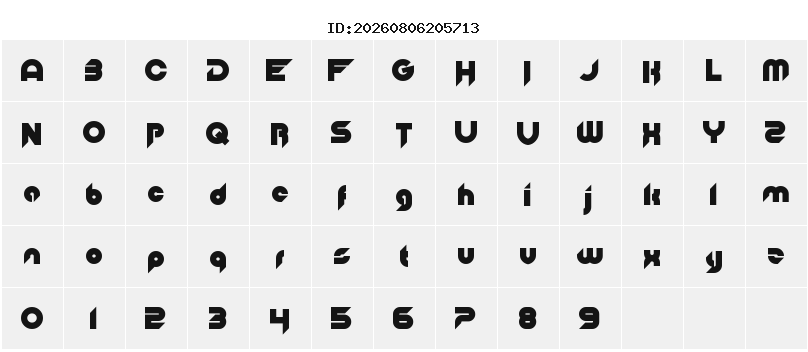
Of The Blue Colour Of Her Eyes Preview
• Font Name: Of The Blue Colour Of Her Eyes
• Full Font Name: Of The Blue Colour Of Her Eyes
• Version: Version 1.00 January 27, 2016, initial release
• Designer: Andrew McCluskey
About Of The Blue Colour Of Her Eyes.otf
Of The Blue Colour Of Her Eyes.otf is a modern, elegant sans-serif font designed for ultimate readability and visual harmony. Perfect for branding, headlines, web design, and print materials.